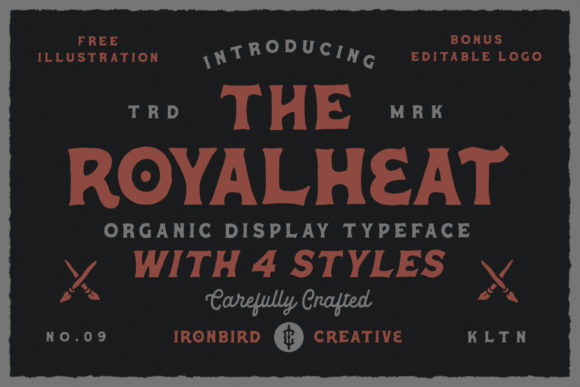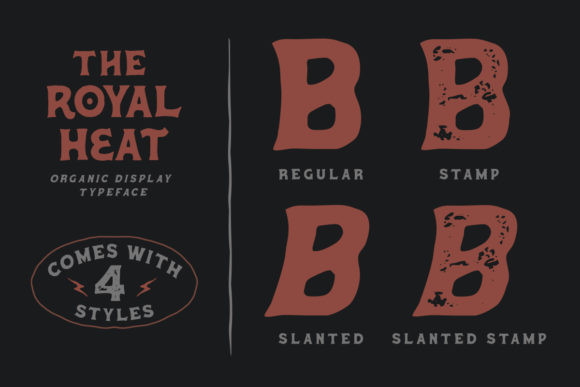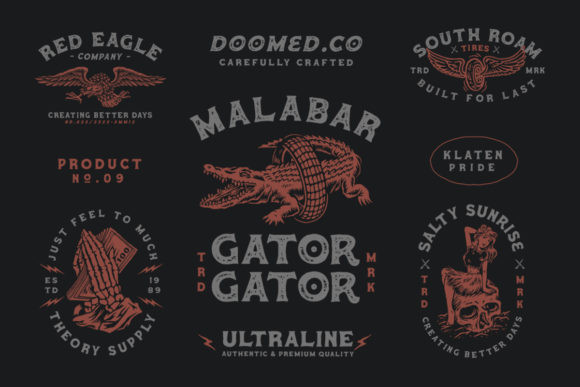
The Royalheat Font
The Royalheat is a beautiful display font with a vintage feel. It comes in four styles: regular, stamp, slanted and slanted stamp and it brings amazing illustrations and editable logos. It will elevate a wide range of design projects to the highest level, be it branding, headings, wedding designs, invitations, signatures, logos, labels, and much more!